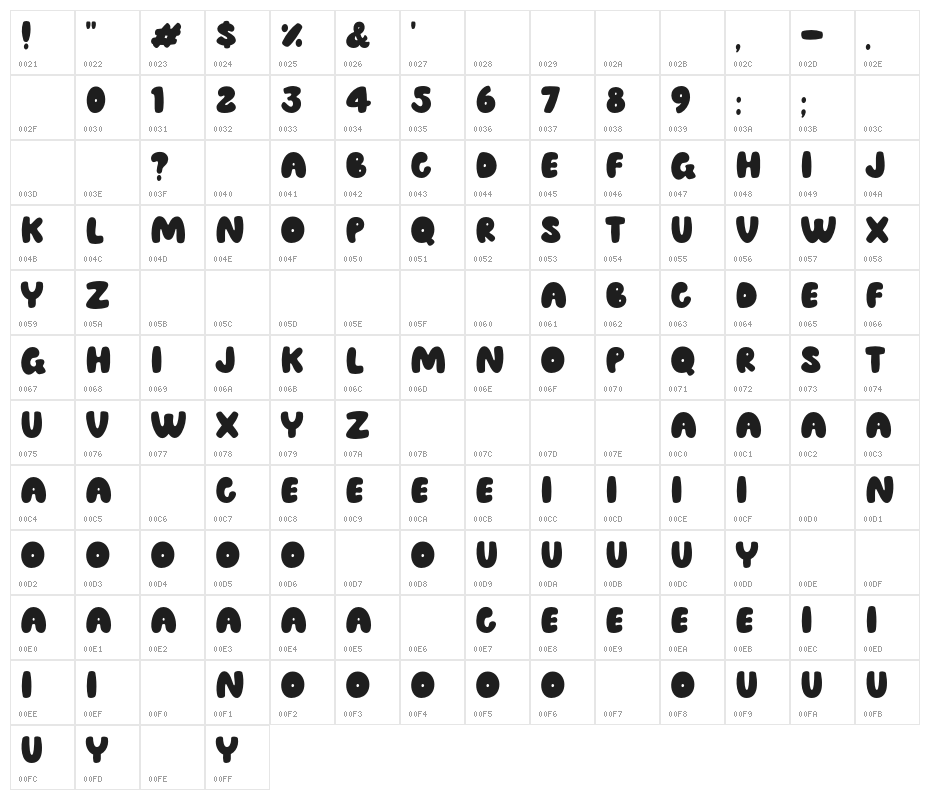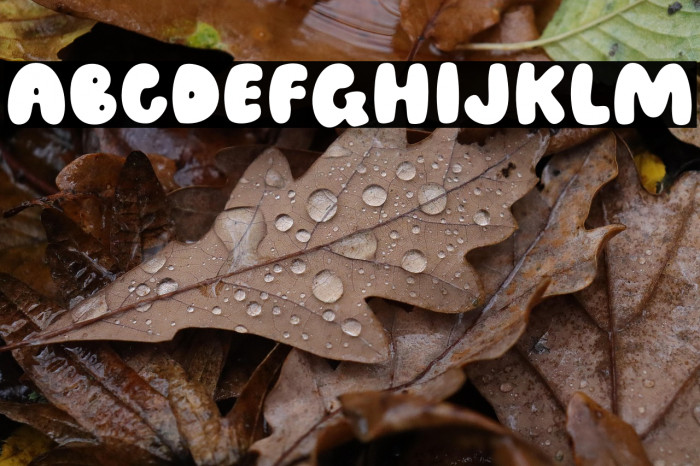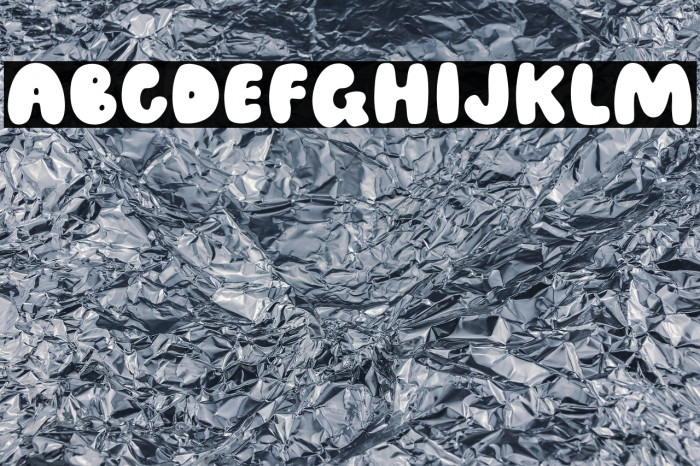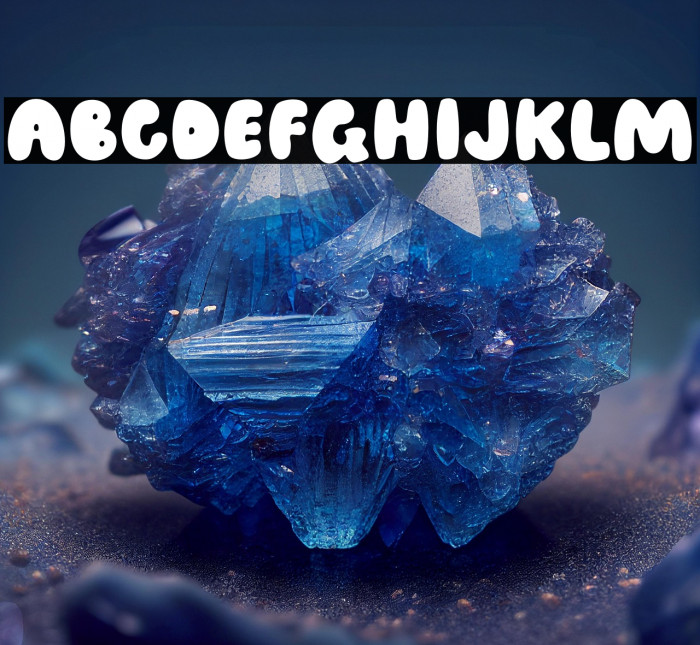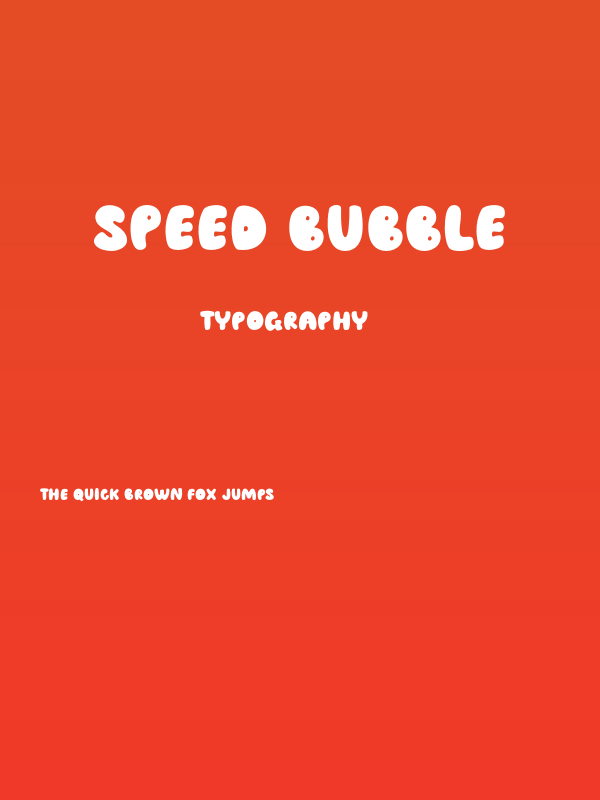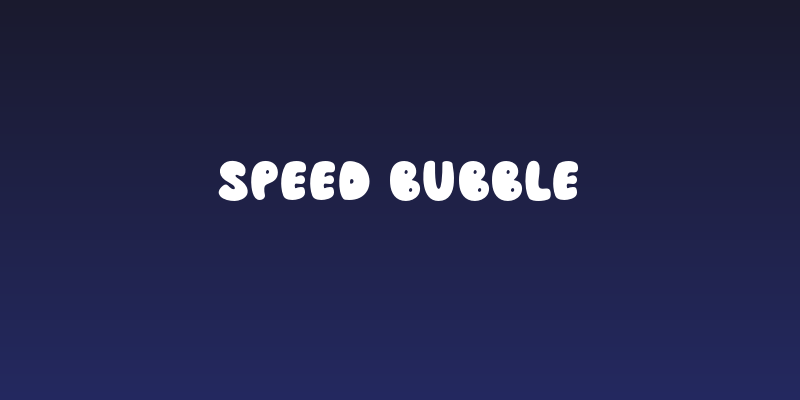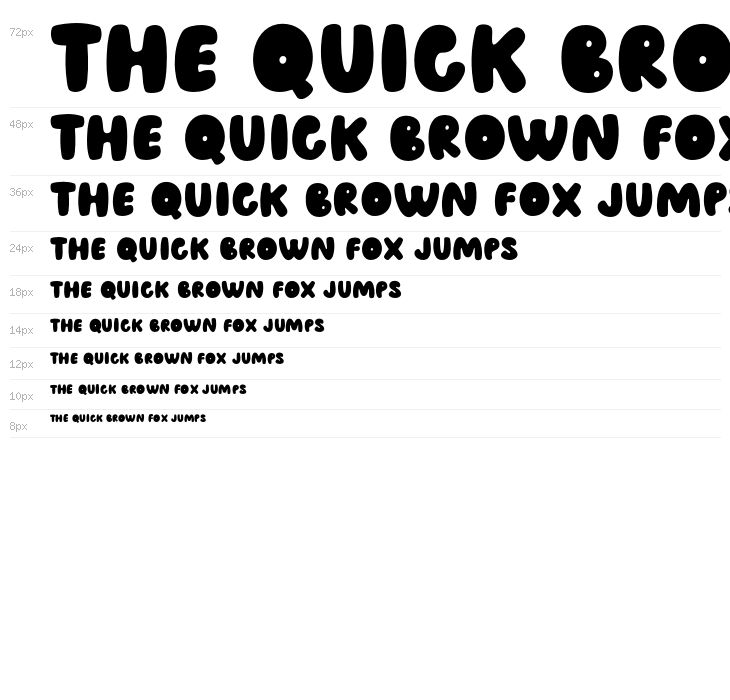
Speed Bubble Font
Speed Bubble Description
This playful and bold font features rounded, bubble-like characters that convey a sense of fun and whimsy. Each letter is crafted with a thick, uniform stroke, giving it a substantial presence on the page. The characters are well-spaced, ensuring readability while maintaining a cohesive look. The font includes both uppercase and lowercase letters, numbers, and a variety of special characters, making it versatile for different design needs. Its unique style is reminiscent of retro or cartoon aesthetics, making it ideal for projects that require a touch of nostalgia or playfulness.
| Overall Style | Playful, Retro |
| Proposed Projects | Ideal for children's books, playful branding, party invitations, and retro-themed designs. |